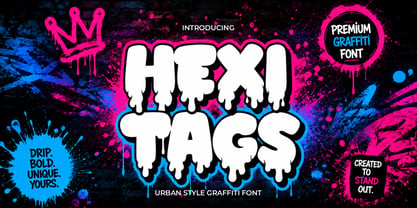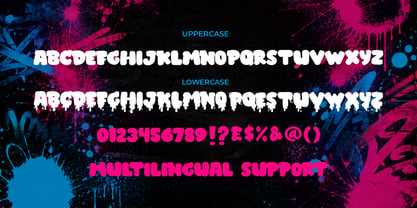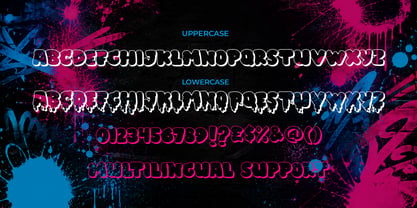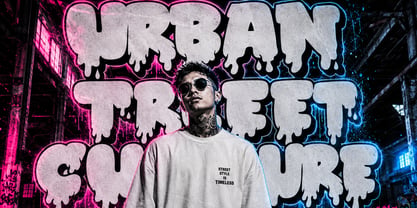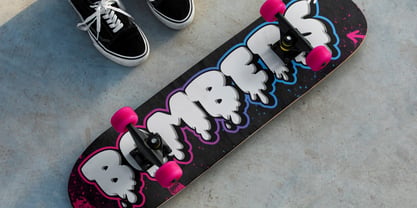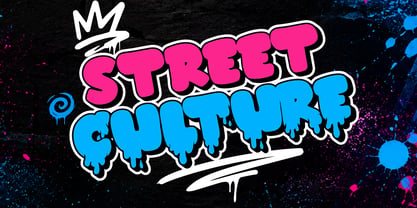
Hexitags is a bold and expressive 3D dripping graffiti font created for designers who want to give their typography a powerful urban personality. Inspired by graffiti lettering, street art, city walls, hand-painted tags, and energetic throw-up styles, Hexitags combines chunky display forms with dramatic dripping details to create a typeface that instantly captures attention.
Designed with a strong visual presence, Hexitags transforms ordinary words into bold graphic statements. The letters feature a distinctive graffiti-inspired structure that feels energetic, expressive, and full of street culture. The dripping details add a raw and dynamic appearance, giving the font the feeling of fresh paint moving across a wall.
Hexitags is an excellent choice for designers working on streetwear graphics, graffiti artwork, urban branding, music projects, hip hop visuals, rap merchandise, posters, album covers, and digital content. Its strong display character makes it especially effective for large headlines, short phrases, logos, and bold typographic compositions.
The font includes uppercase characters, lowercase characters, numbers, and punctuation, providing a versatile character set for a wide range of creative projects. With multilingual support, Hexitags can also be used across a variety of language-based designs and international creative work.
One of the defining features of Hexitags is its bold dripping graffiti appearance. The letters are designed to create an immediate visual impact, making the font perfect for projects that need a strong and memorable style. Whether you are designing a streetwear collection, a graffiti poster, or a music campaign, Hexitags gives your typography a confident and expressive look.
The 3D-inspired character of the font adds extra visual potential. Designers can easily explore different color combinations, shadows, outlines, gradients, and layered effects to create a custom graffiti appearance. The bold letterforms work beautifully with neon colors, vibrant palettes, black backgrounds, spray paint textures, and urban graphic compositions.
Hexitags is perfect for creating a graffiti logo with a strong street identity. Use it for clothing brands, skate labels, urban businesses, music artists, creative studios, or projects that need an edgy visual direction. The expressive shapes help transform simple brand names into memorable visual marks.
For poster design, Hexitags delivers a powerful headline style. Use it for event titles, concert artwork, festival posters, hip hop events, graffiti exhibitions, or urban campaigns. The font naturally attracts attention and works especially well when combined with strong contrast and bold graphic elements.
Hexitags is also a great option for T-shirt designs, hoodies, tote bags, stickers, skateboard graphics, wall art, decals, and merchandise artwork. Its bold shapes remain visually strong in large compositions and can be adapted to different creative styles.
Digital designers can use Hexitags for social media graphics, YouTube thumbnails, gaming artwork, promotional banners, and online campaigns. Its unique dripping character gives every headline a strong visual hook, helping your designs stand out in busy digital spaces.
The font also works well for album artwork and music branding. Its urban style is naturally suited to hip hop, rap, trap, street culture, and underground music visuals. Use Hexitags to create artist names, song titles, event graphics, or bold promotional typography.
If you are looking for a font with a strong graffiti identity, Hexitags delivers a distinctive combination of bold letterforms, dripping details, urban energy, and 3D-inspired visual character. It is expressive without feeling ordinary and powerful without losing its playful street-art attitude.
From graffiti walls to streetwear collections, from music posters to digital campaigns, Hexitags is made for designers who want their typography to stand out.
Create bold words. Add urban energy. Make every letter feel alive.